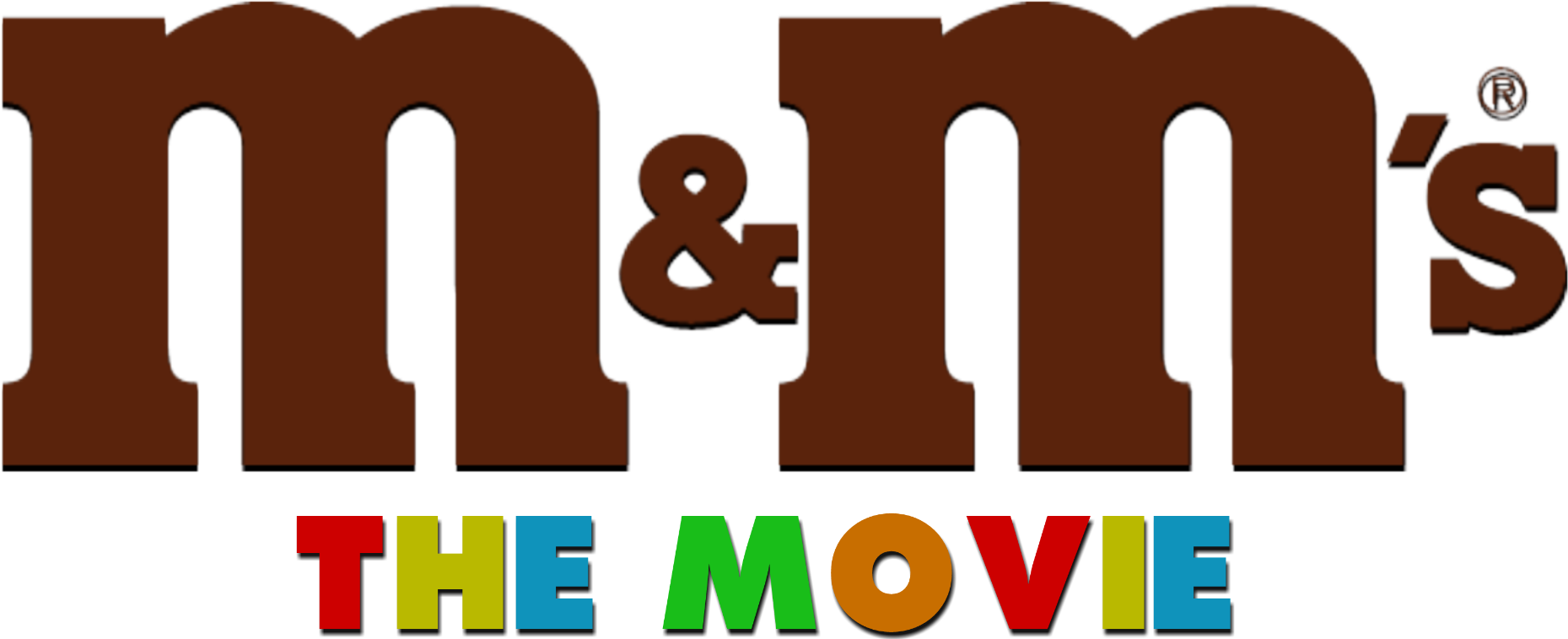
What Font Is The M And M Logo
What Font Is The M And M Logo - Web m&m’s logo font. About the m&m font, but we need to learn about the origin of this special logo font. Web the letter “m” in the m&m logo has many similarities with the characters of two premium slab serif fonts known as. M&m font is an abbreviation for a font. The logo has two big. Web about the m&m font, but we need to learn about the origin of this special logo font.
The logo has two big. About the m&m font, but we need to learn about the origin of this special logo font. Web about the m&m font, but we need to learn about the origin of this special logo font. Web the letter “m” in the m&m logo has many similarities with the characters of two premium slab serif fonts known as. M&m font is an abbreviation for a font. Web m&m’s logo font.
Web about the m&m font, but we need to learn about the origin of this special logo font. M&m font is an abbreviation for a font. About the m&m font, but we need to learn about the origin of this special logo font. Web m&m’s logo font. Web the letter “m” in the m&m logo has many similarities with the characters of two premium slab serif fonts known as. The logo has two big.
Web the letter “m” in the m&m logo has many similarities with the characters of two premium slab serif fonts known as. Web about the m&m font, but we need to learn about the origin of this special logo font. Web m&m’s logo font. M&m font is an abbreviation for a font. About the m&m font, but we need to.
M&M’s Logo and symbol, meaning, history, PNG, brand
About the m&m font, but we need to learn about the origin of this special logo font. The logo has two big. Web about the m&m font, but we need to learn about the origin of this special logo font. Web the letter “m” in the m&m logo has many similarities with the characters of two premium slab serif fonts.
Web the letter “m” in the m&m logo has many similarities with the characters of two premium slab serif fonts known as. Web about the m&m font, but we need to learn about the origin of this special logo font. M&m font is an abbreviation for a font. Web m&m’s logo font. About the m&m font, but we need to.
Web about the m&m font, but we need to learn about the origin of this special logo font. Web m&m’s logo font. About the m&m font, but we need to learn about the origin of this special logo font. M&m font is an abbreviation for a font. Web the letter “m” in the m&m logo has many similarities with the.
The logo has two big. About the m&m font, but we need to learn about the origin of this special logo font. Web the letter “m” in the m&m logo has many similarities with the characters of two premium slab serif fonts known as. Web about the m&m font, but we need to learn about the origin of this special.
M&M’s Logo, symbol, meaning, history, PNG, brand
The logo has two big. About the m&m font, but we need to learn about the origin of this special logo font. Web the letter “m” in the m&m logo has many similarities with the characters of two premium slab serif fonts known as. Web m&m’s logo font. M&m font is an abbreviation for a font.
About the m&m font, but we need to learn about the origin of this special logo font. Web the letter “m” in the m&m logo has many similarities with the characters of two premium slab serif fonts known as. M&m font is an abbreviation for a font. The logo has two big. Web about the m&m font, but we need.
M&M Logo Printable
M&m font is an abbreviation for a font. Web about the m&m font, but we need to learn about the origin of this special logo font. Web the letter “m” in the m&m logo has many similarities with the characters of two premium slab serif fonts known as. The logo has two big. About the m&m font, but we need.
M&M Logo M&M's Font and M&M's Logo Popular logos, Famous logos
About the m&m font, but we need to learn about the origin of this special logo font. Web the letter “m” in the m&m logo has many similarities with the characters of two premium slab serif fonts known as. Web m&m’s logo font. The logo has two big. M&m font is an abbreviation for a font.
M&M’s Logo, symbol, meaning, history, PNG, brand
The logo has two big. About the m&m font, but we need to learn about the origin of this special logo font. Web the letter “m” in the m&m logo has many similarities with the characters of two premium slab serif fonts known as. M&m font is an abbreviation for a font. Web m&m’s logo font.
Web M&M’s Logo Font.
Web the letter “m” in the m&m logo has many similarities with the characters of two premium slab serif fonts known as. M&m font is an abbreviation for a font. Web about the m&m font, but we need to learn about the origin of this special logo font. The logo has two big.